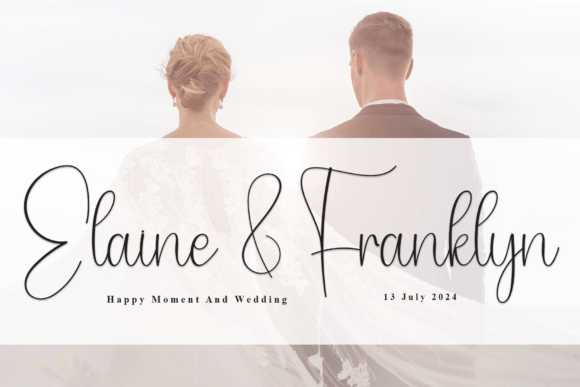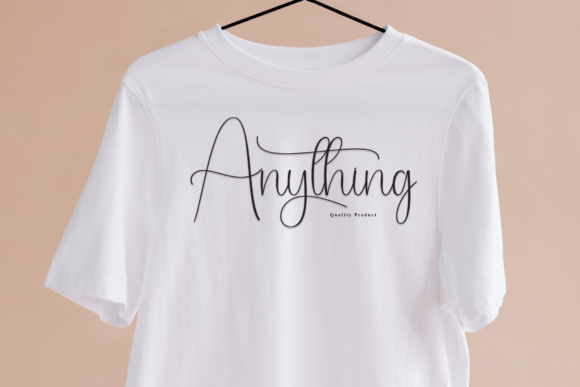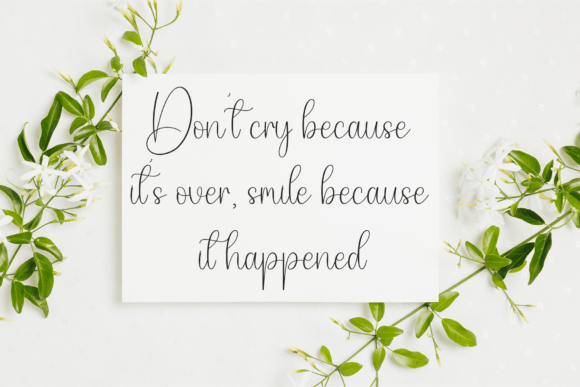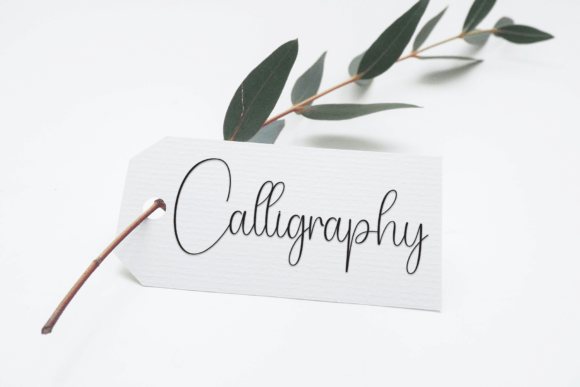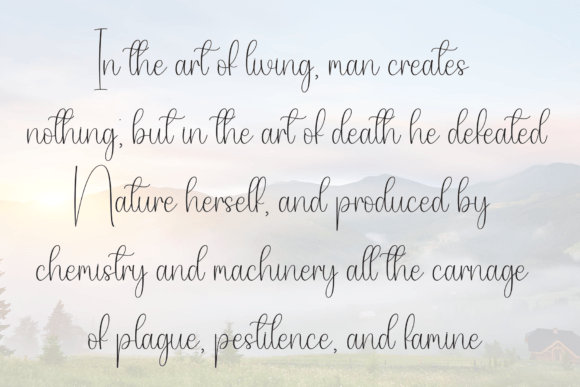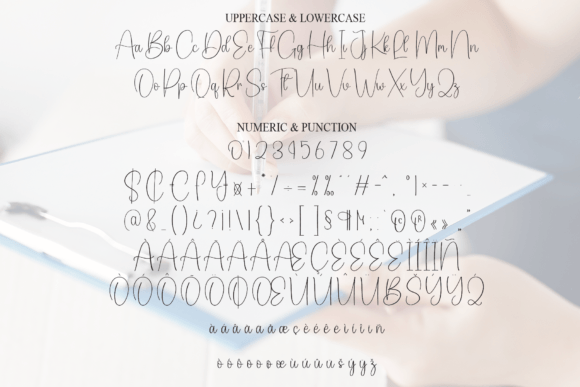
Introduction to Kayla Signature Font
Kayla Signature is a handwritten font that looks elegant and personal, like a beautiful signature.
It’s perfect for adding a stylish and unique touch to your projects, such as invitations, logos, or social media posts The letters flow smoothly, giving it a natural and artistic feel.
Key Features of Kayla Signature Font
Why Choose Kayla Signature Font?
Kayla Signature Font offers exceptional quality and versatility, making it a valuable addition to your design toolkit. Whether you’re creating for personal projects or commercial use, Kayla Signature Font delivers professional results.